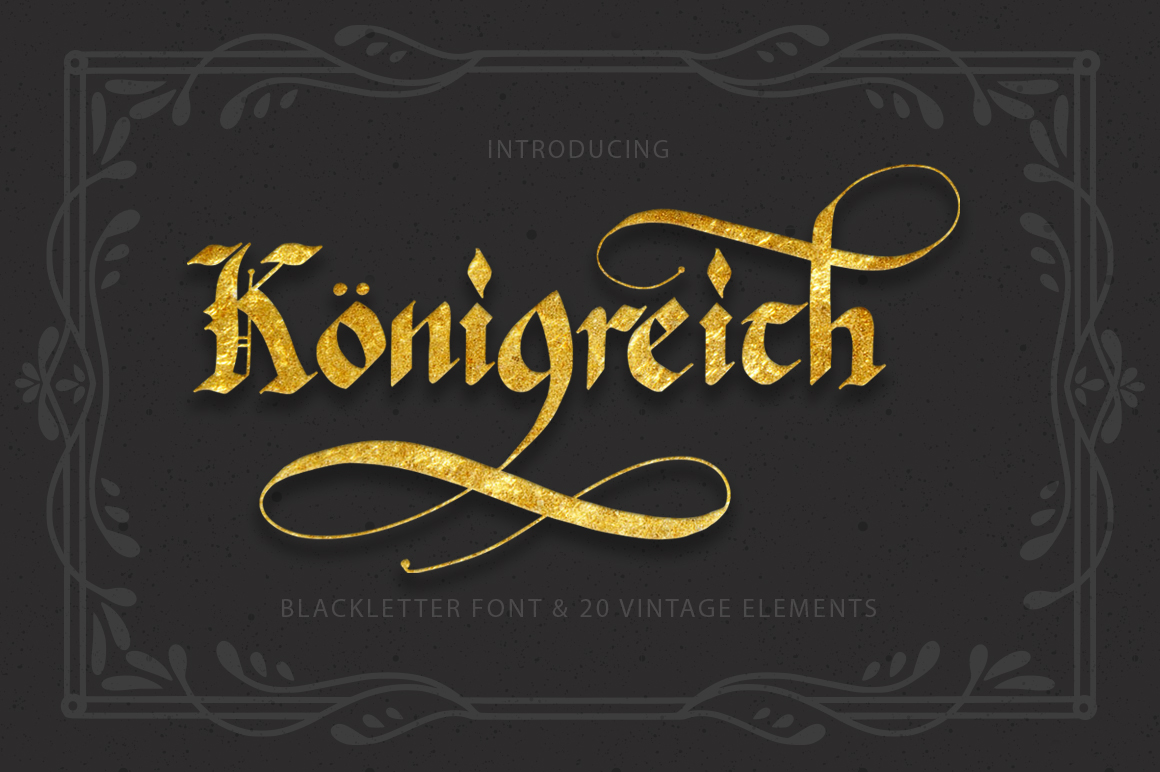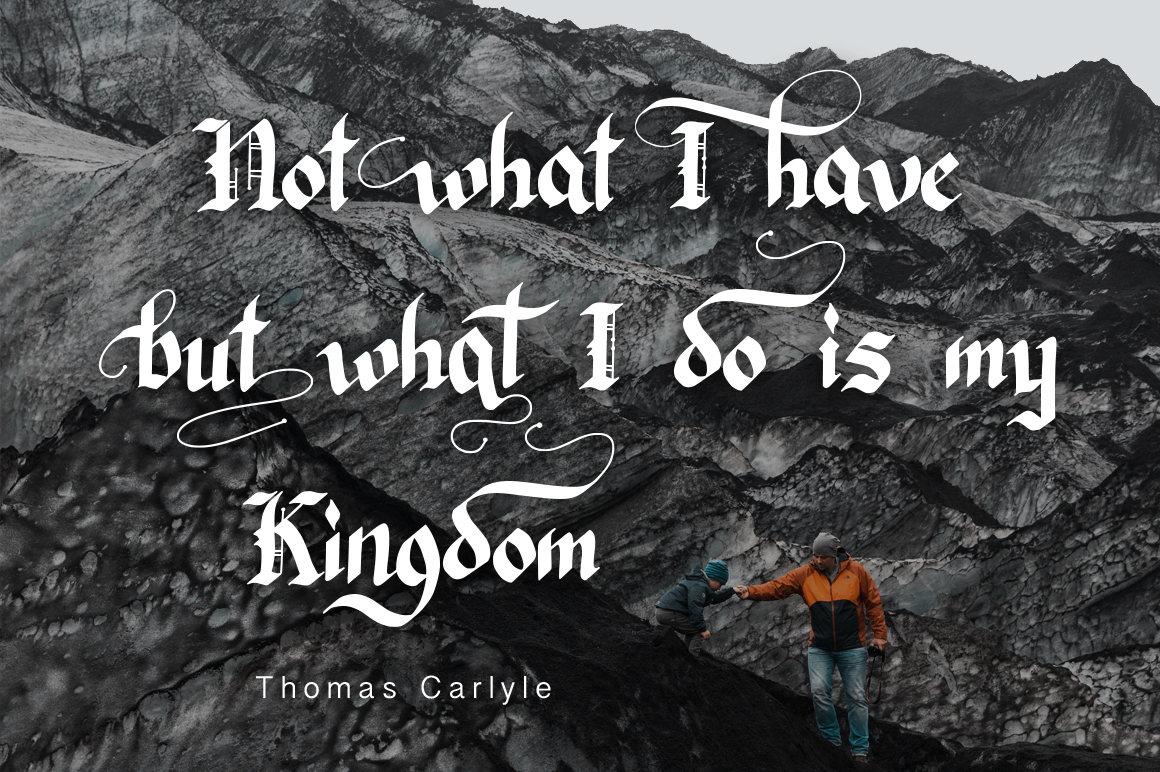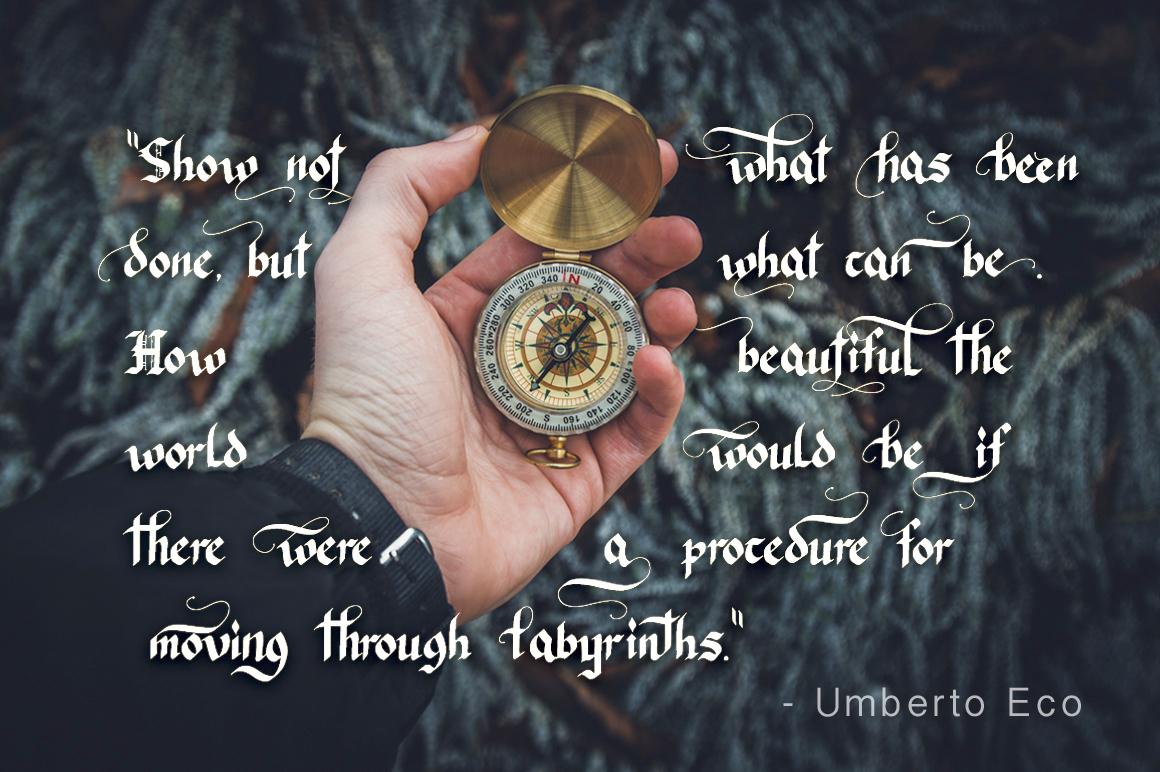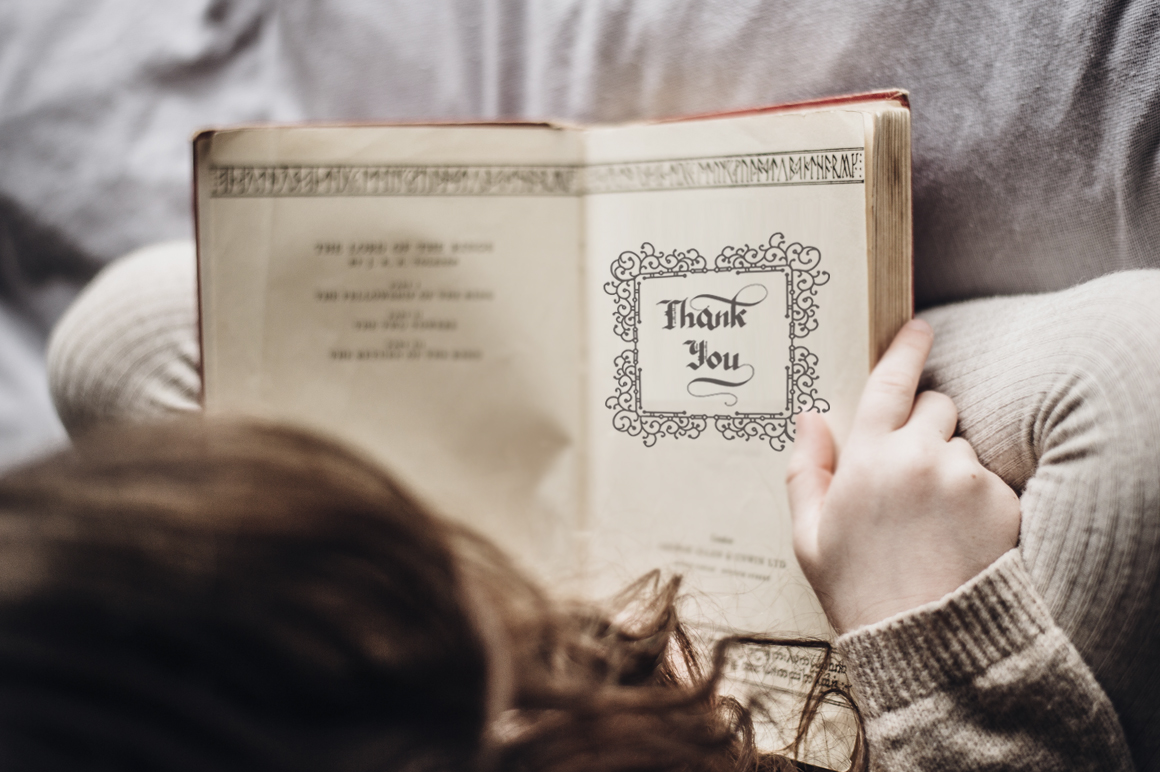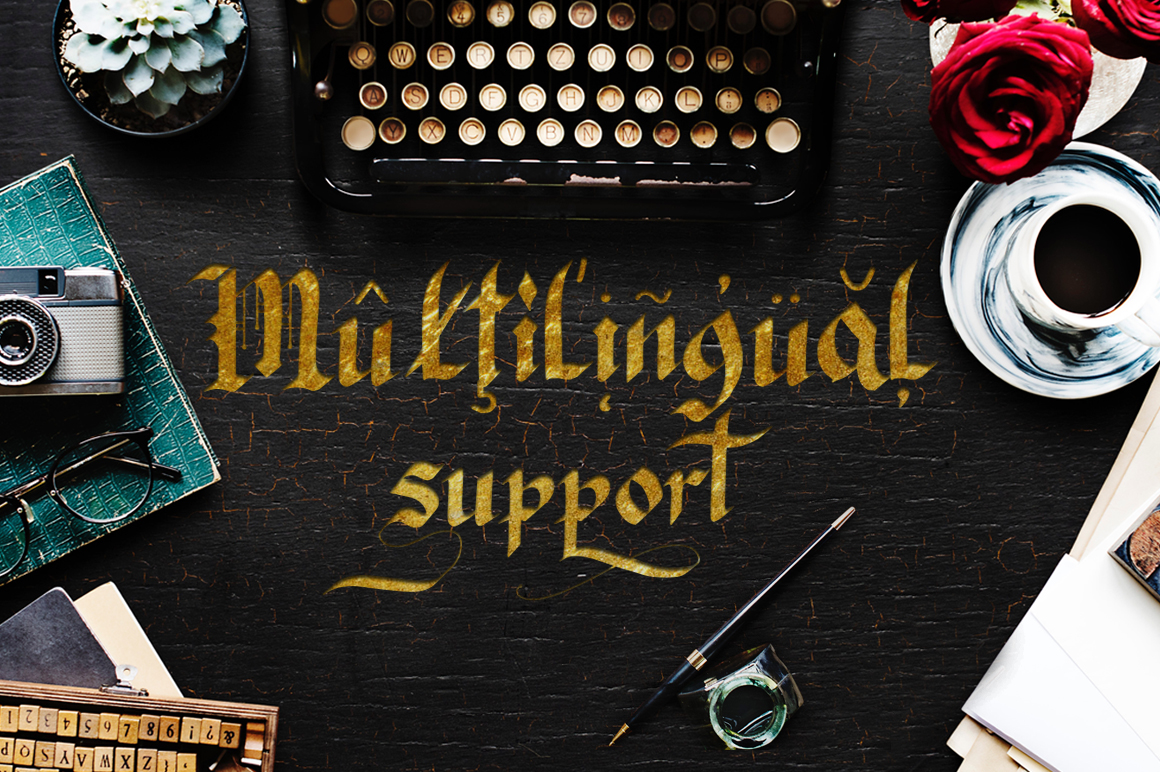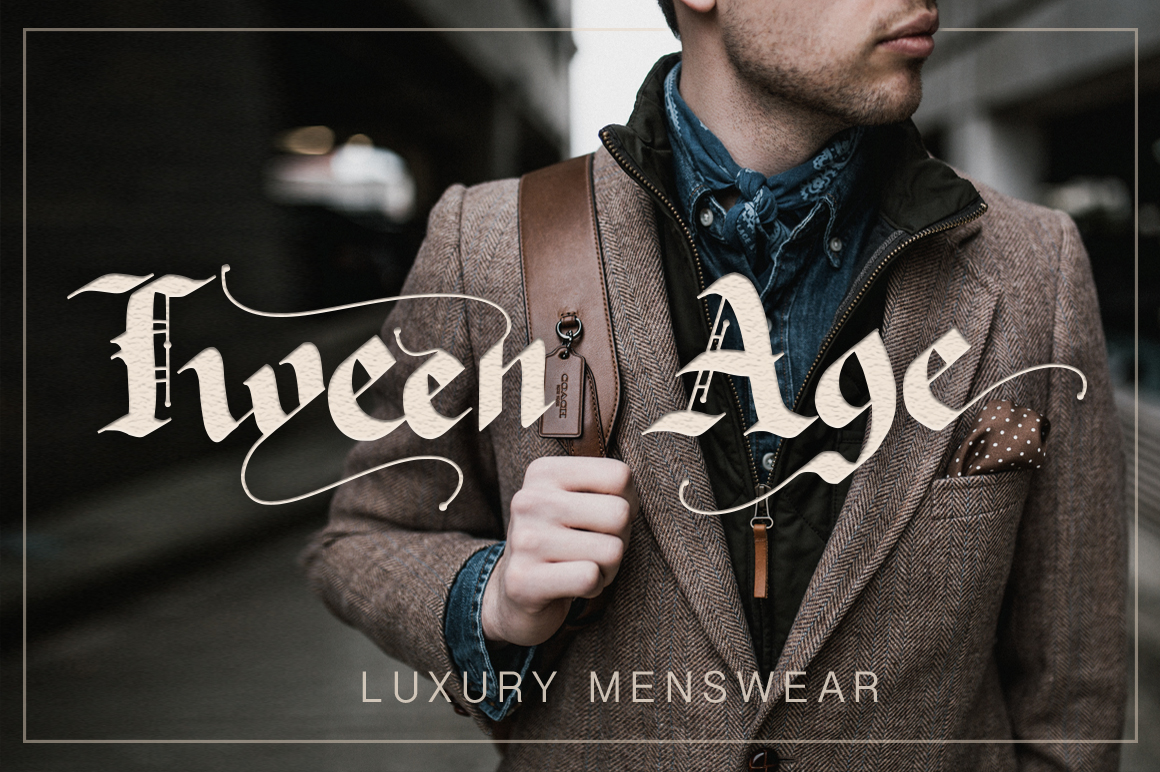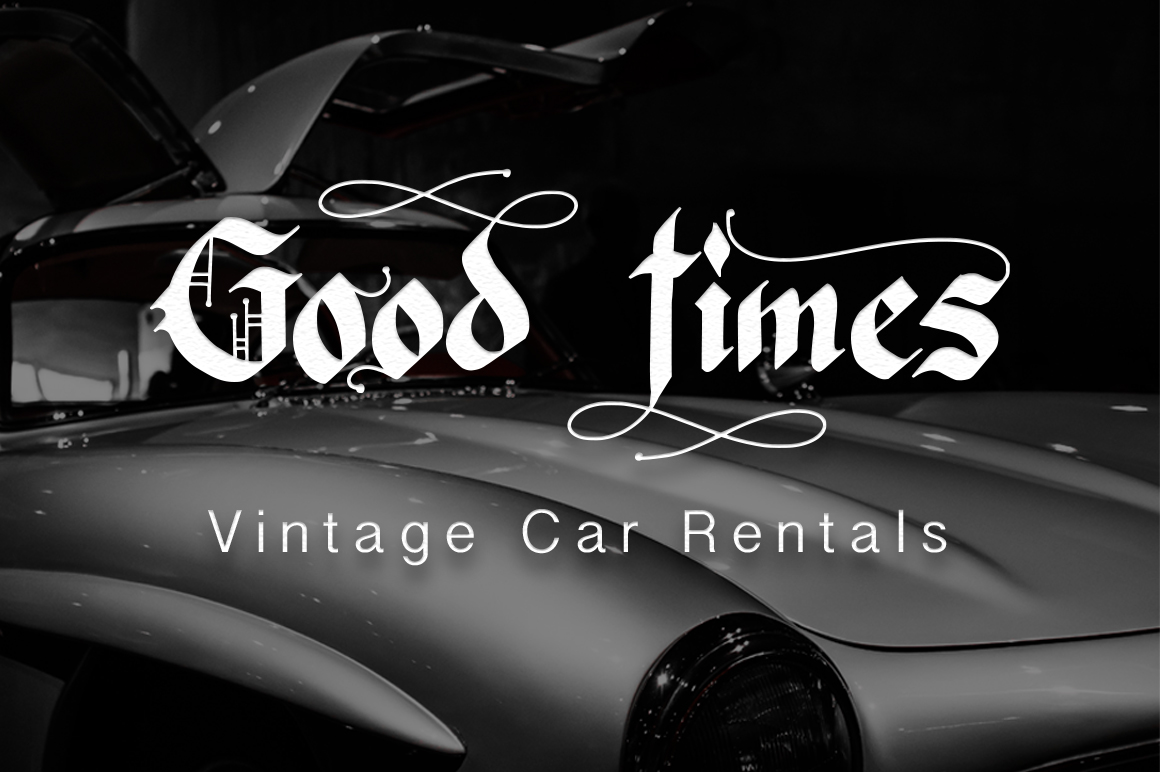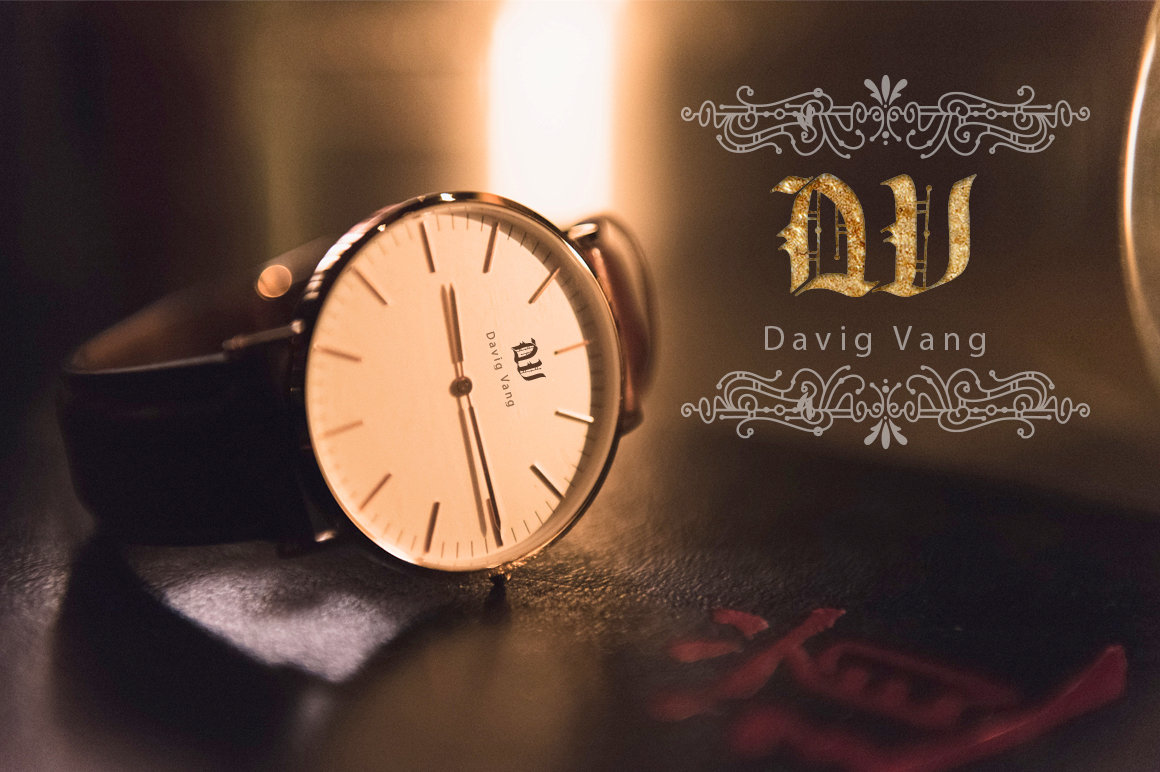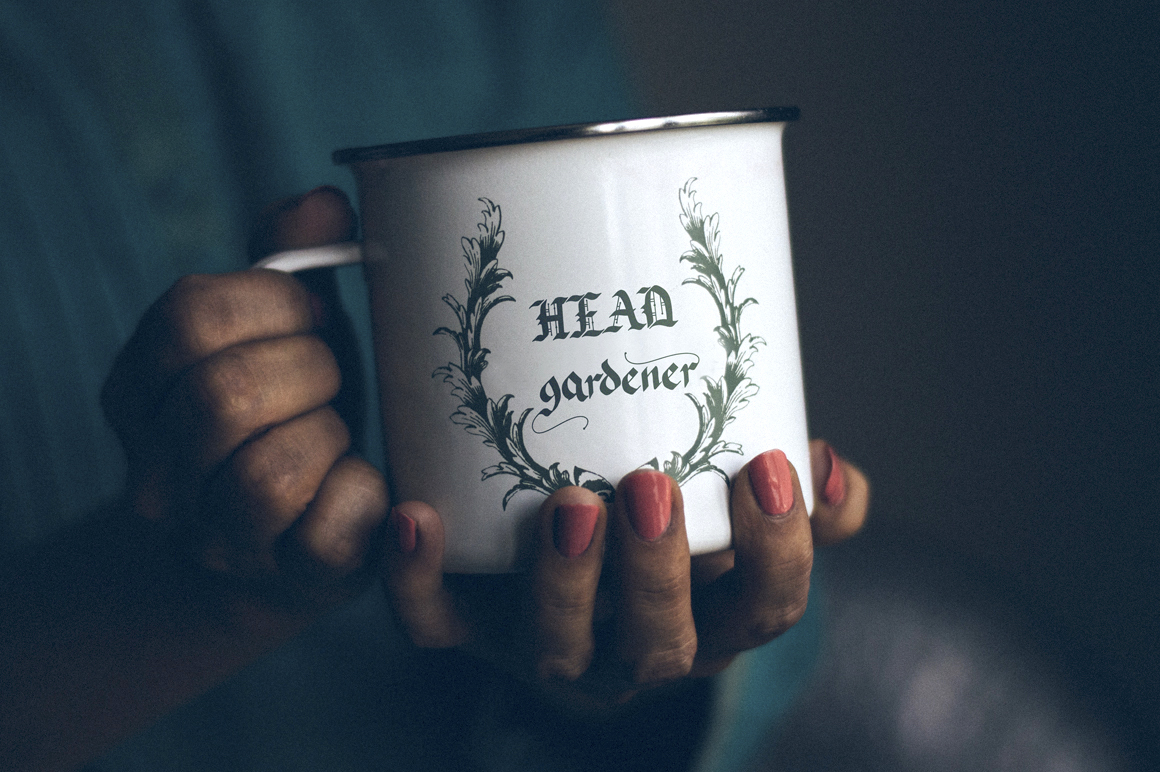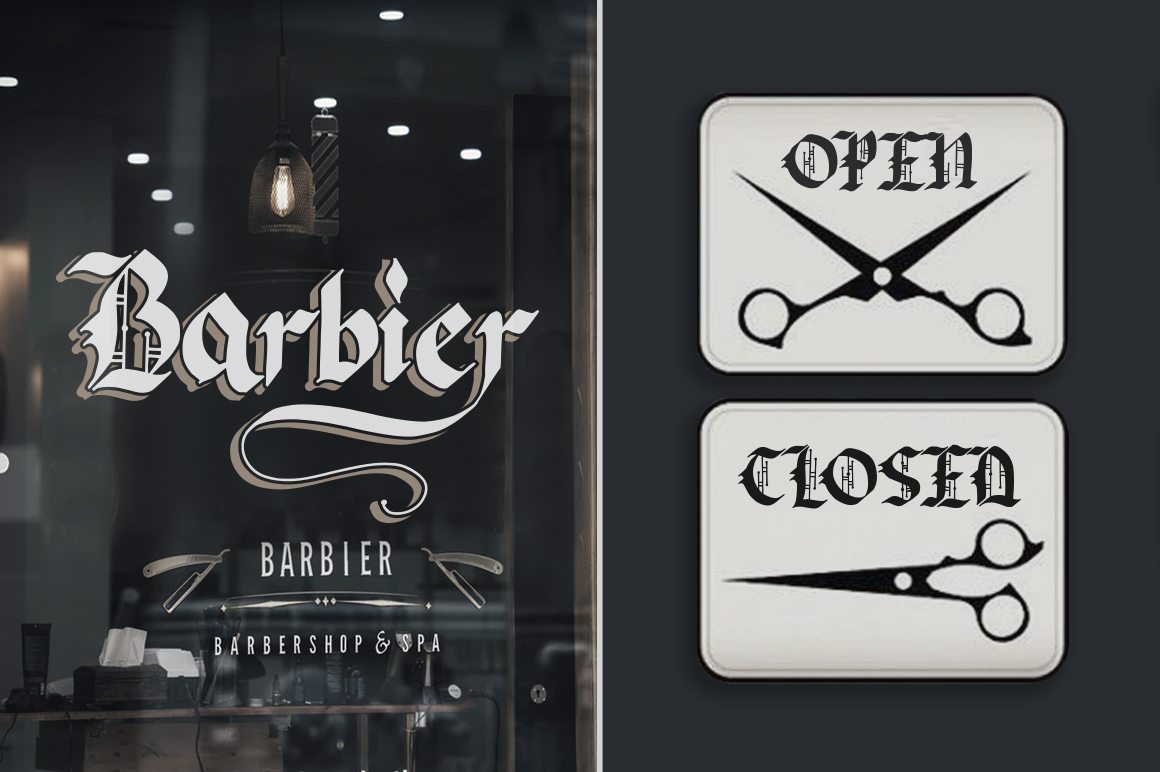
Königreich Font
About Königreich Font
Königreich is a classic and magical feeling blackletter font, reminiscent of Germanic character styles. It also comes with 20 vintage ornaments to add more aesthetic appeal to your designs.